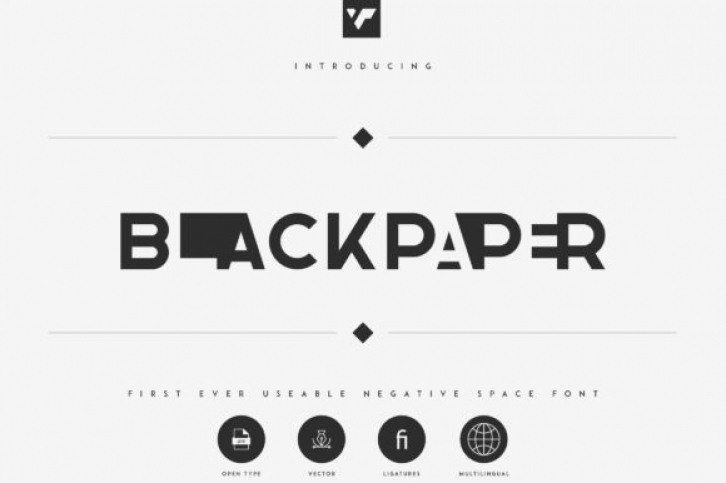
Blackpaper is a neat and incredibly unique display font. It celebrates abstract shapes in all their eclectic brilliance. Add this font to your creative ideas and notice how it will make them stand out!